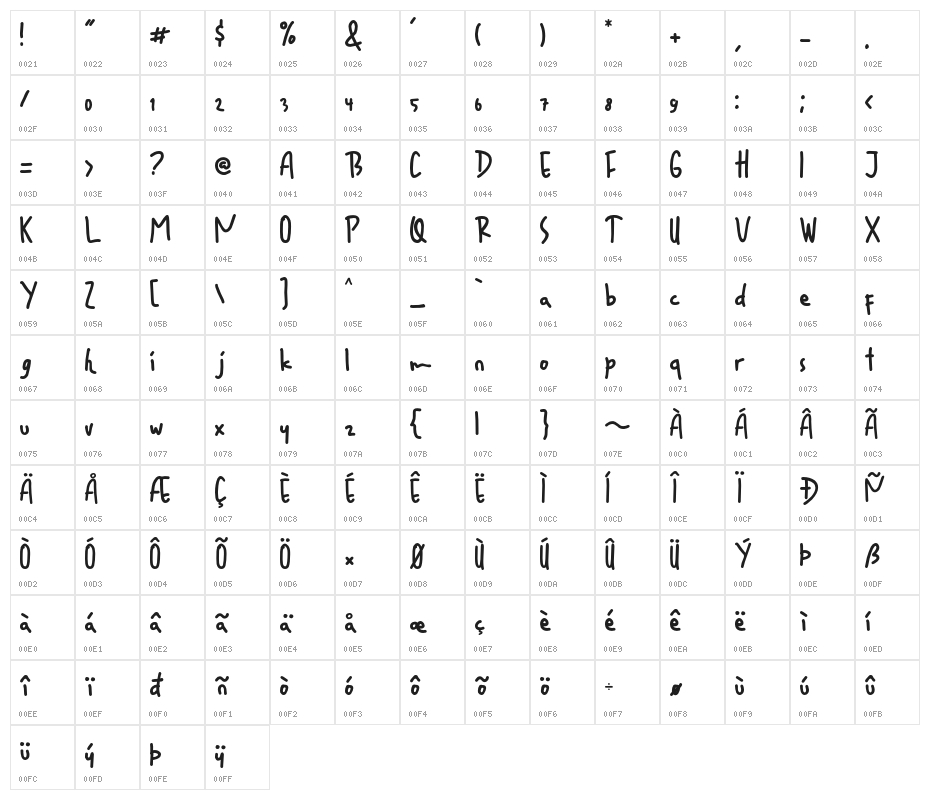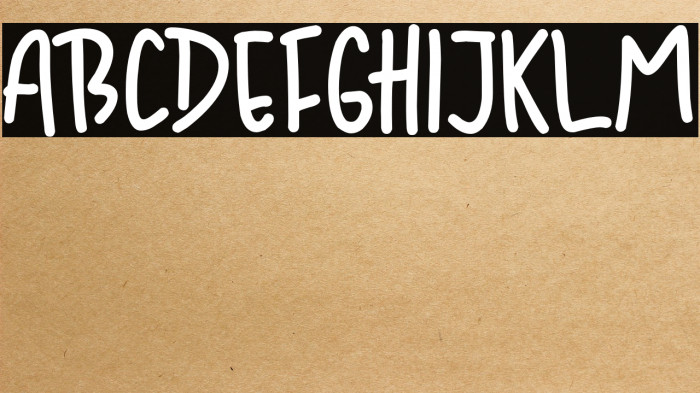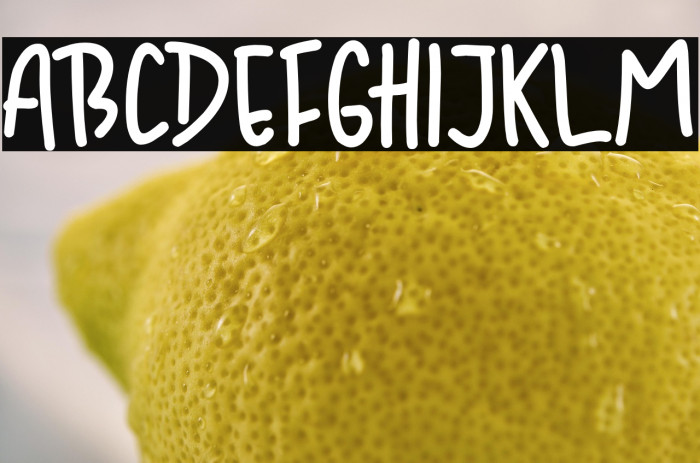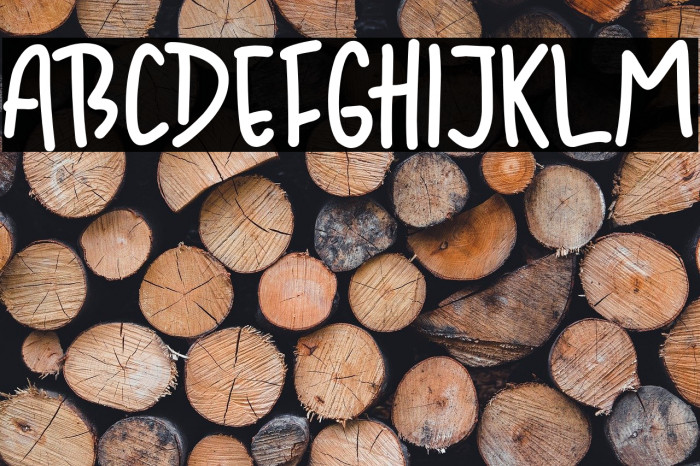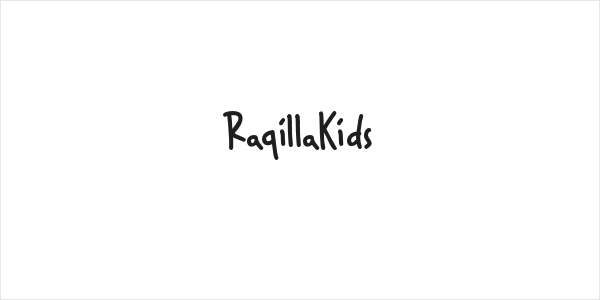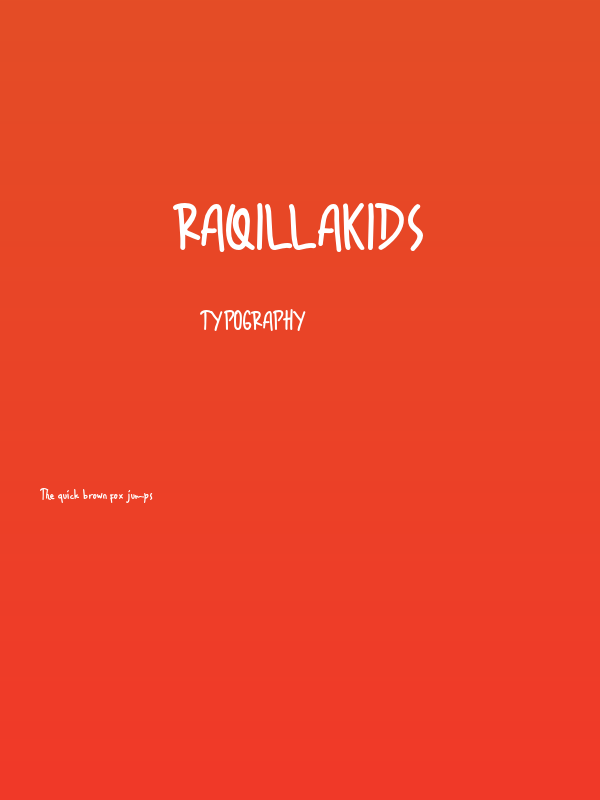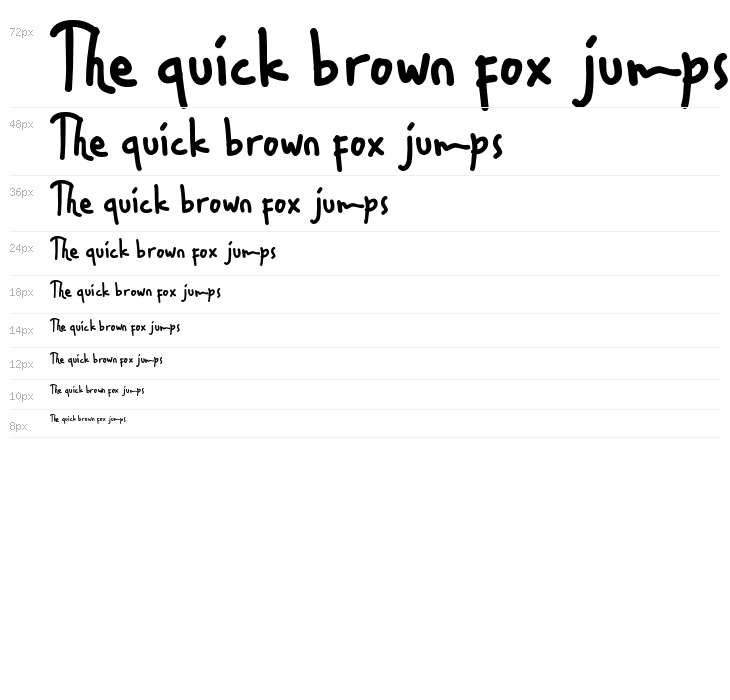
RaqillaKids Font
RaqillaKids Description
This playful and whimsical font features a handwritten style with a casual and friendly appearance. The letters are slightly irregular, adding a charming and informal touch. The strokes are bold and rounded, giving the font a warm and approachable feel. It includes a full set of uppercase and lowercase letters, numbers, and a variety of special characters. The overall design is perfect for projects that require a fun and lively aesthetic, such as children's books, playful branding, or creative posters.
| Proposed Projects | Ideal for children's books, playful branding, creative posters, and informal invitations. |